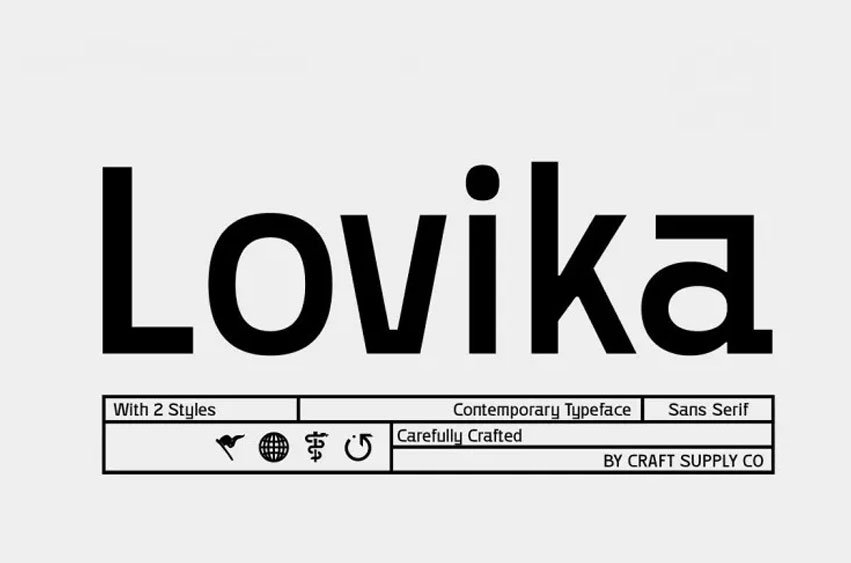
Lovika Font is a modern sans serif font perfect for professional designs. It has a modern appearance and simple design, which contributes to its clarity, versatility, and professionalism, thus, it is perfect for business logos, documents, and websites.
It implies professionalism and confidence, thus ideal for logos, business cards, letterheads, and any other branding materials that need to project a neat and formal outlook.